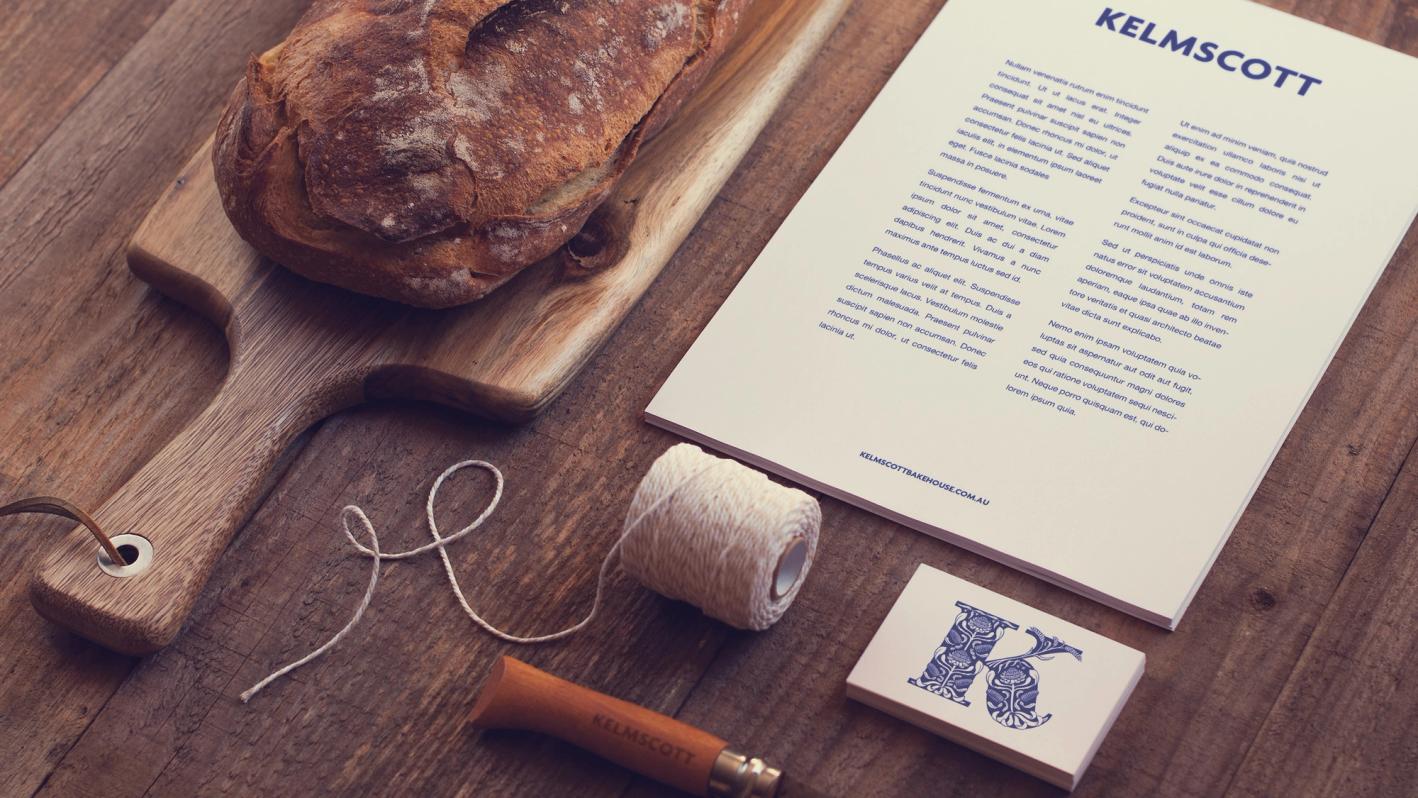
Kelmscott Bakehouse
A bold, ornamental monogram blending William Morris-inspired patterns with native Australian flora.
Overview
I was commissioned by Bit League to create a decorative monogram for Kelmscott Bakehouse, an artisan bakery that honours traditional methods and sustainability.
Named after William Morris’s Kelmscott Press, the bakery sought a design that reflected Arts & Crafts heritage, incorporating native Australian plants and wheat to symbolise its craft and location.
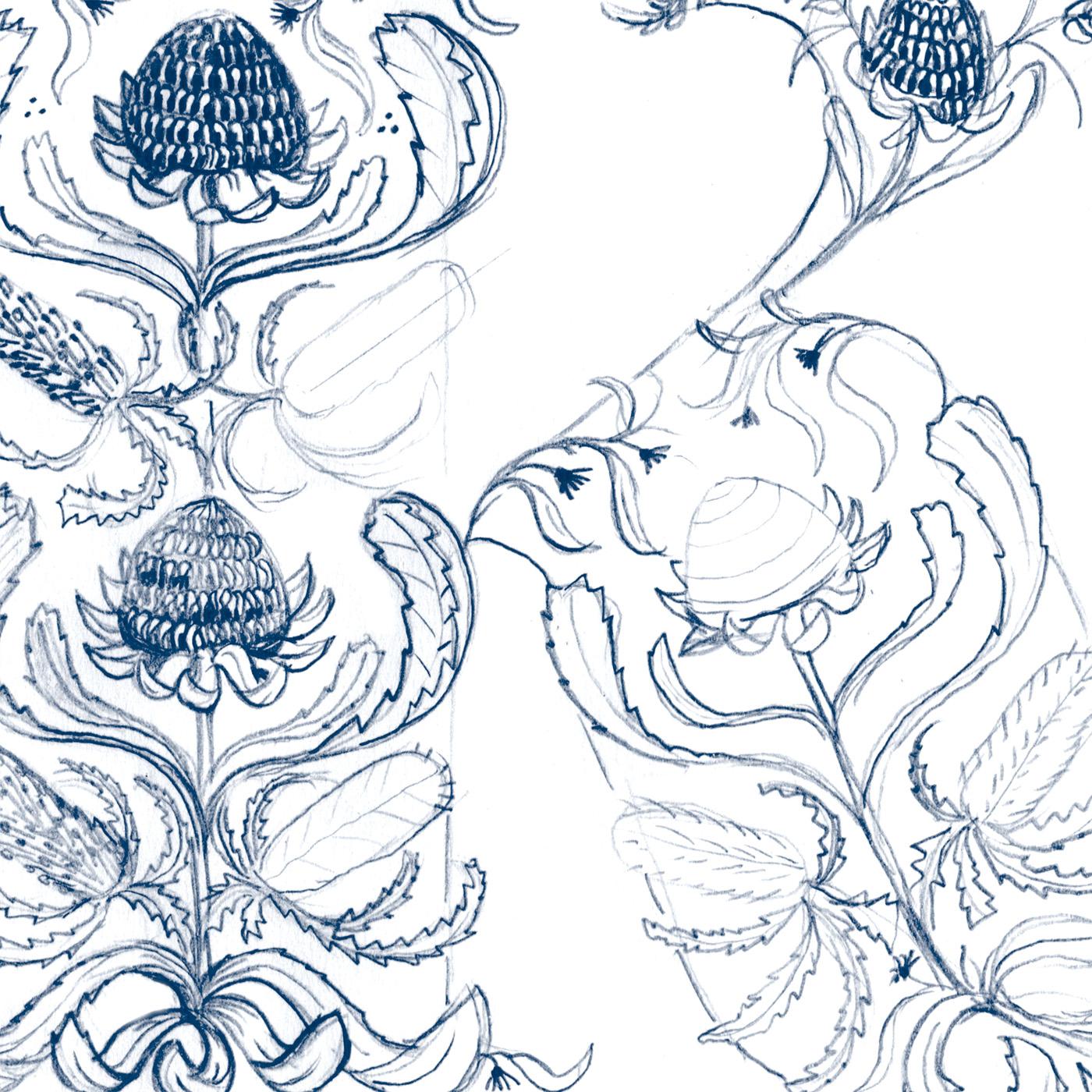
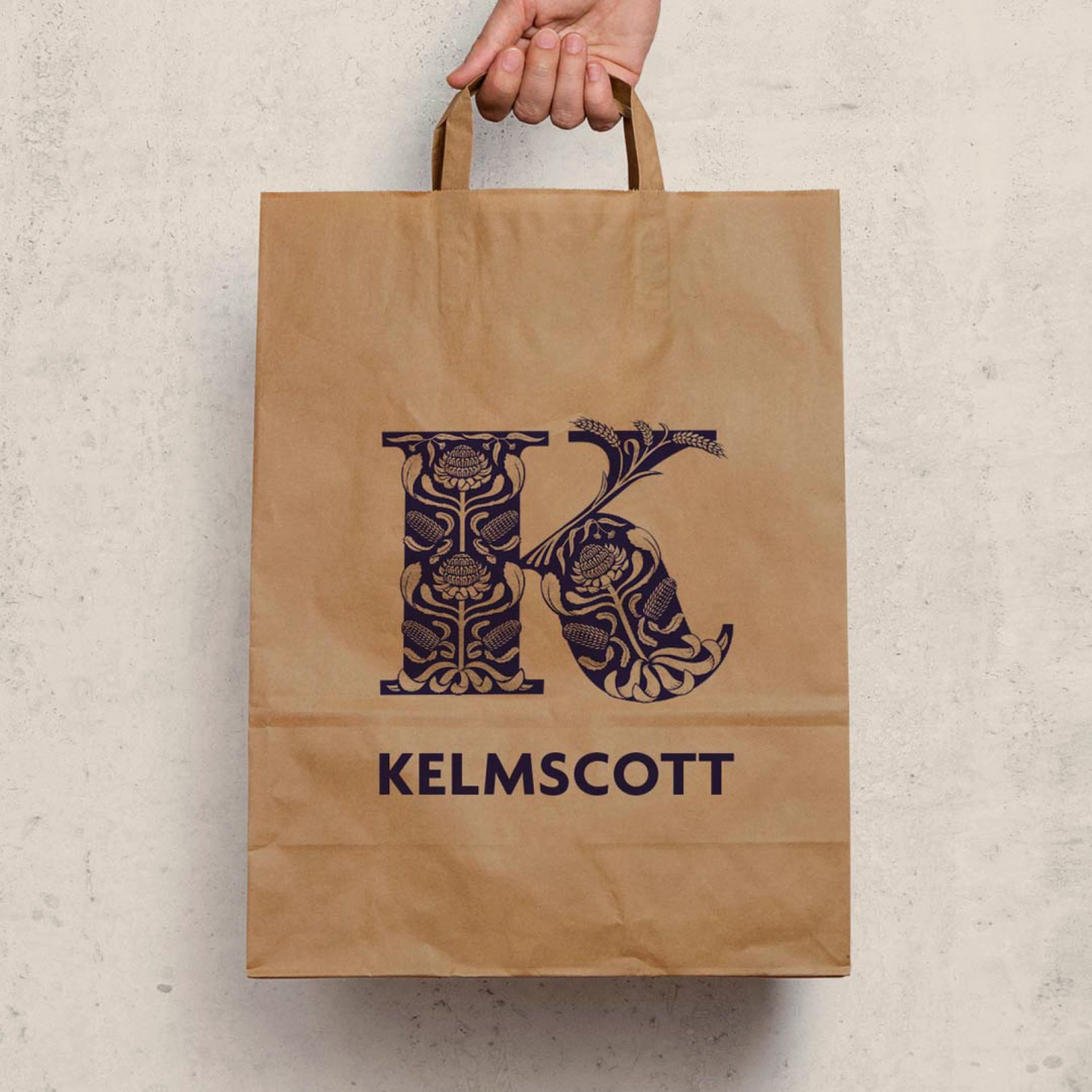
Method
Inspired by Morris’s intricate patterns, I wove together Waratahs, Gum and Banksia into a design that harmonised with the letterform.
The Waratah’s bold, structured stems formed the monogram’s central spine, ensuring clarity and balance. The wheat, drawn slightly finer, allows the dark background to reinforce the letter’s form.
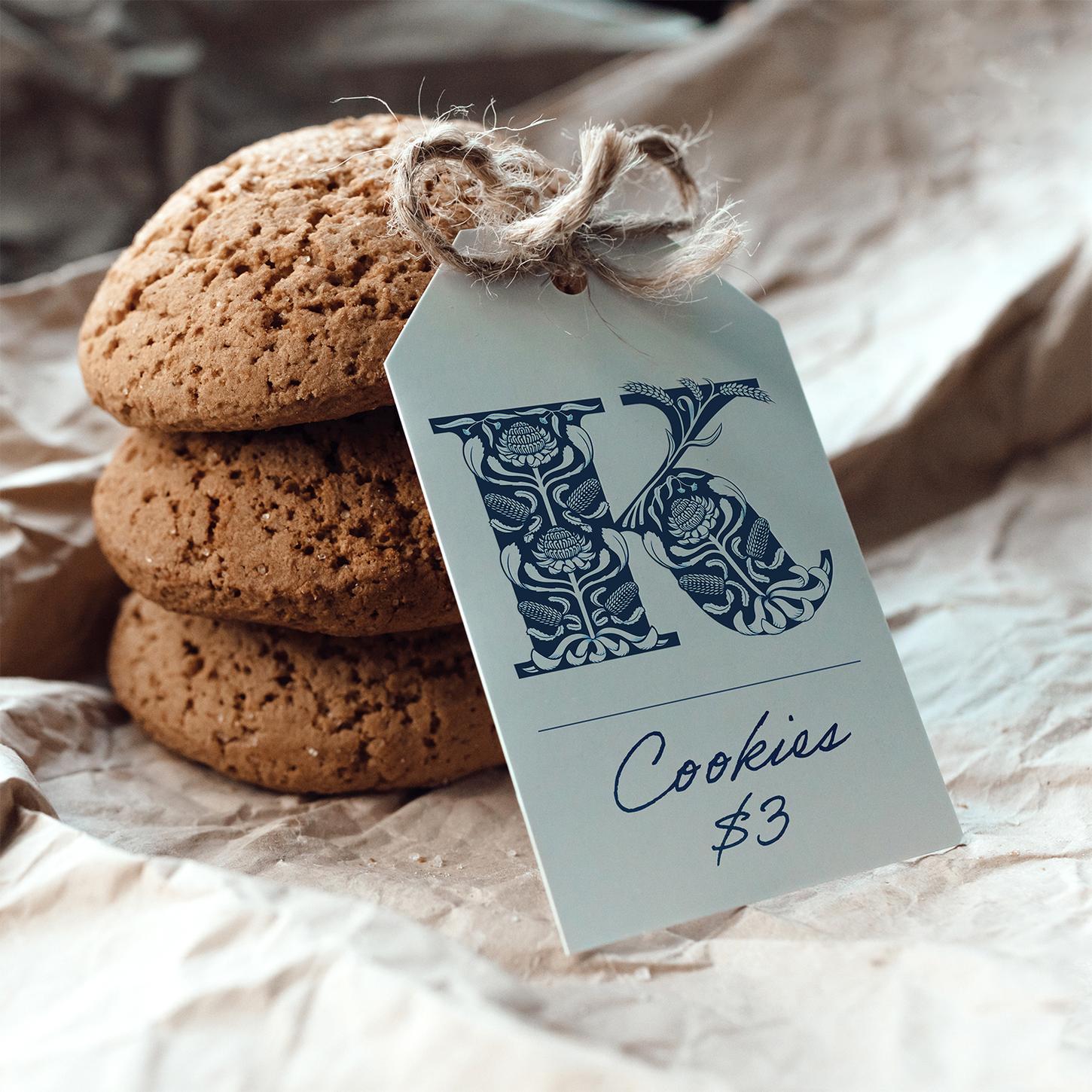
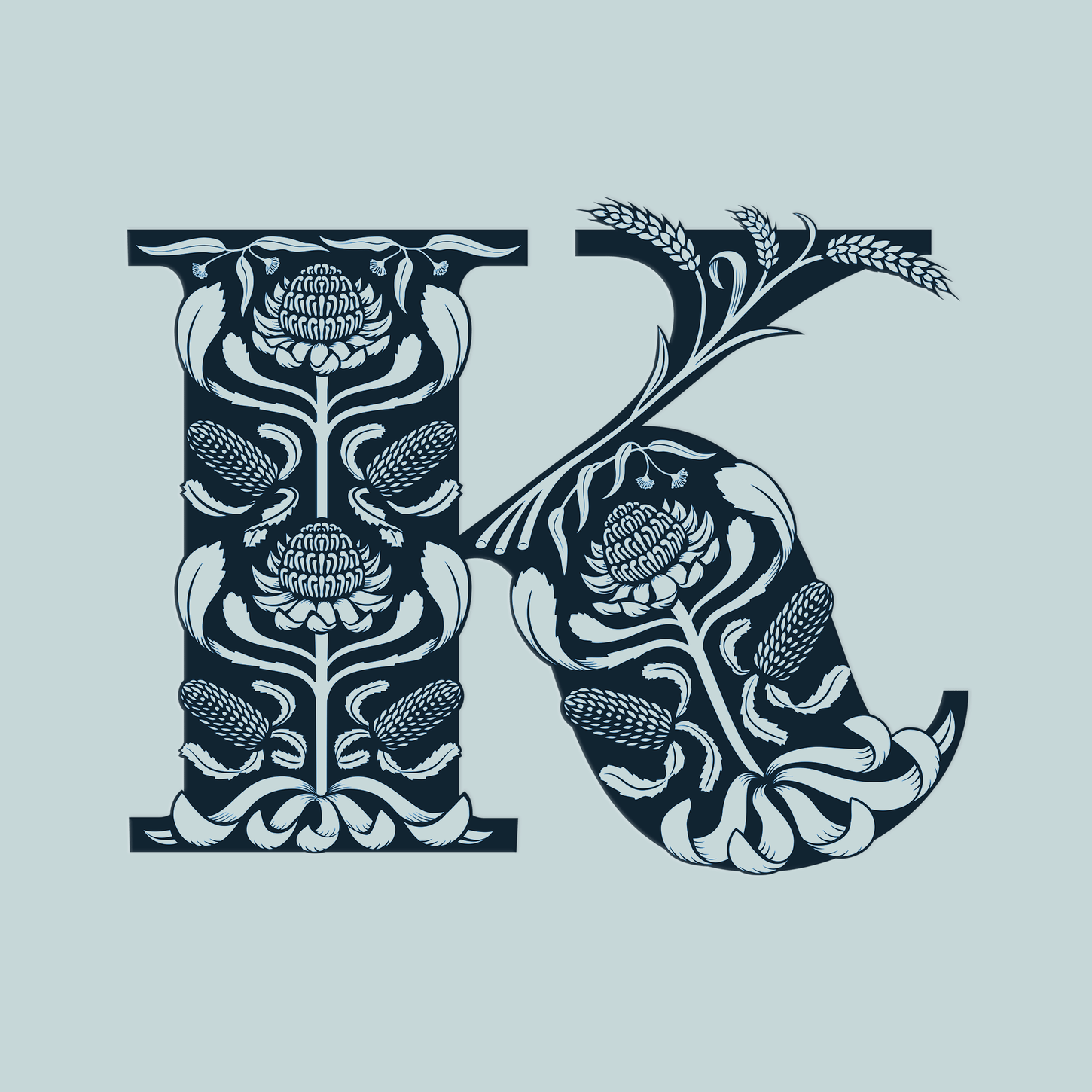
Outcomes
The final Kelmscott Bakehouse monogram is both historically inspired and uniquely local, seamlessly integrating Arts & Crafts aesthetics with Australian identity.